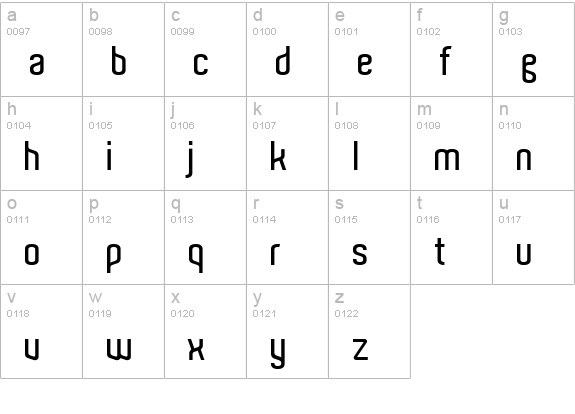
Aldo SemiBold Font Details
Aldo SemiBold is a sub-bold, structured variant in the Aldo typeface family \xE2\x80\x94 well suited to sub-headlines and emphasised passages.
Aldo SemiBold font is a versatile and modern typeface that strikes the perfect balance between elegance and readability. Its bold yet refined design makes it ideal for a wide range of design projects, from branding to editorial design. The strong, confident strokes of Aldo SemiBold exude a sense of sophistication and professionalism, making it a popular choice among designers and creatives alike. What sets Aldo SemiBold apart is not only its impeccable design but also the fact that it is available for free download at FontsMarket.com. This means that you can easily access this high-quality font without any cost, making it a valuable addition to your font library. Whether you're working on a logo, website, or print materials, Aldo SemiBold is sure to make a statement and elevate your design projects to the next level.